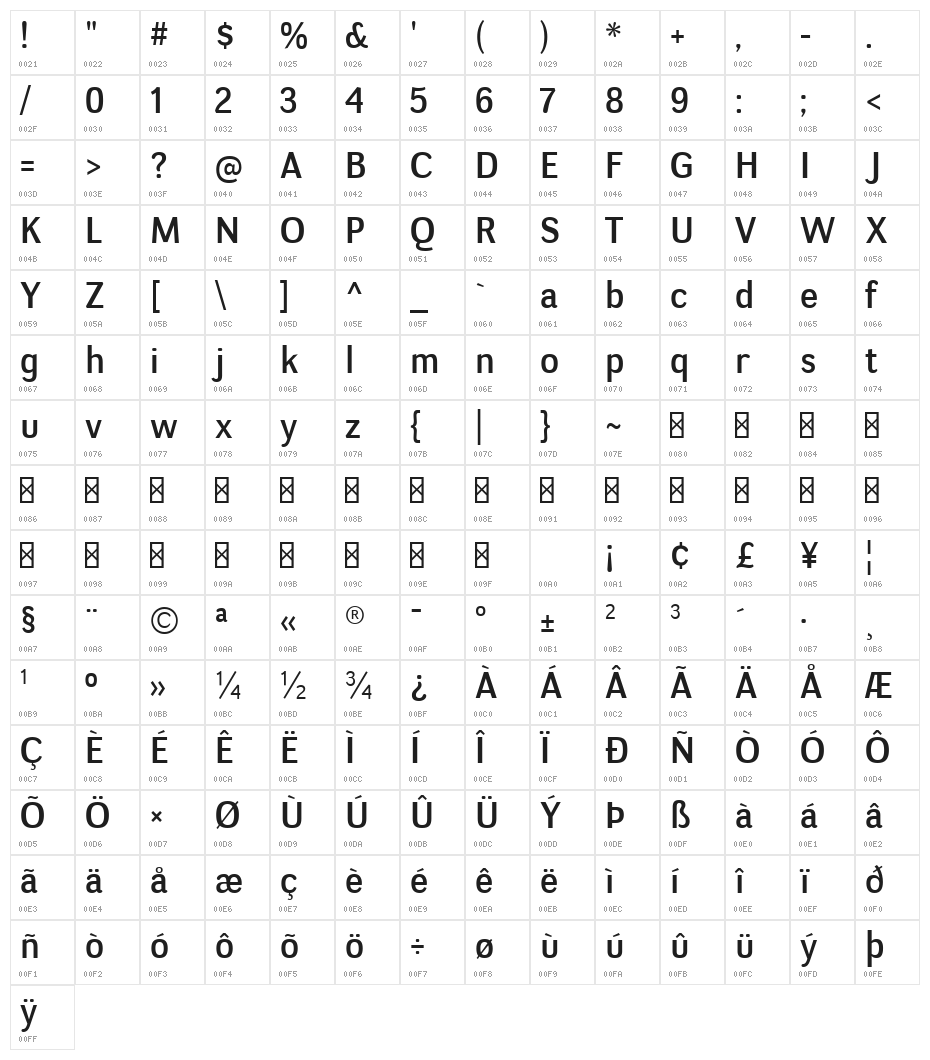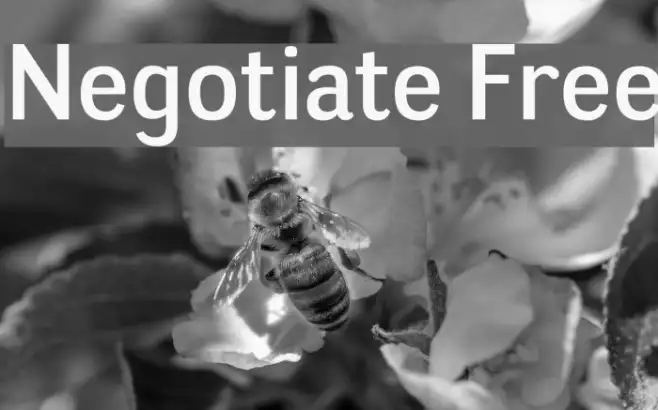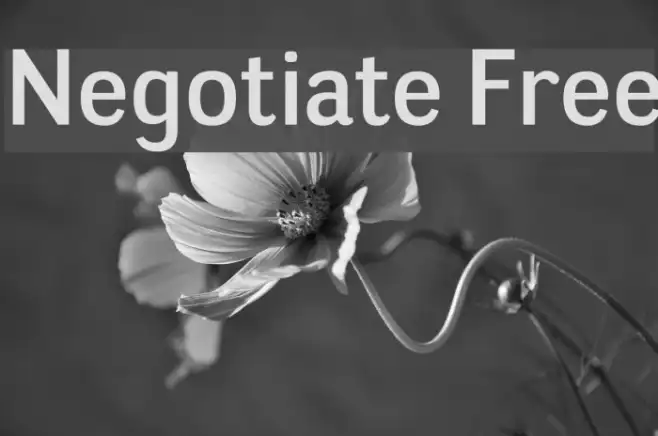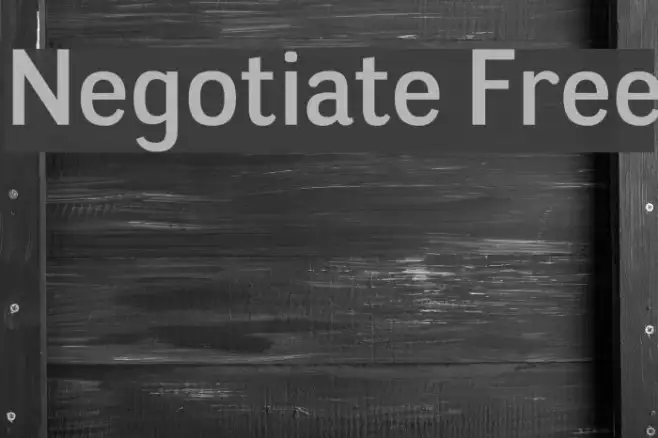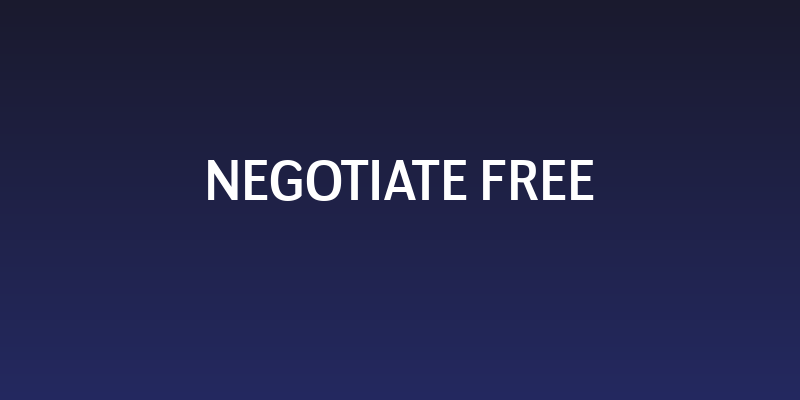
Negotiate Free Font
Negotiate Free Description
This typeface presents a clean and modern aesthetic, characterized by its sans-serif style. The letters are well-proportioned with a consistent stroke width, offering a balanced and harmonious appearance. The uppercase and lowercase letters are designed with clarity in mind, making them highly legible. The numerals are straightforward and align well with the overall design, ensuring readability. Special characters are included, maintaining the font's cohesive look. This font's simplicity and versatility make it suitable for a wide range of applications, from digital interfaces to print media.
| Proposed Projects | Ideal for web design, corporate branding, user interfaces, and editorial content. |